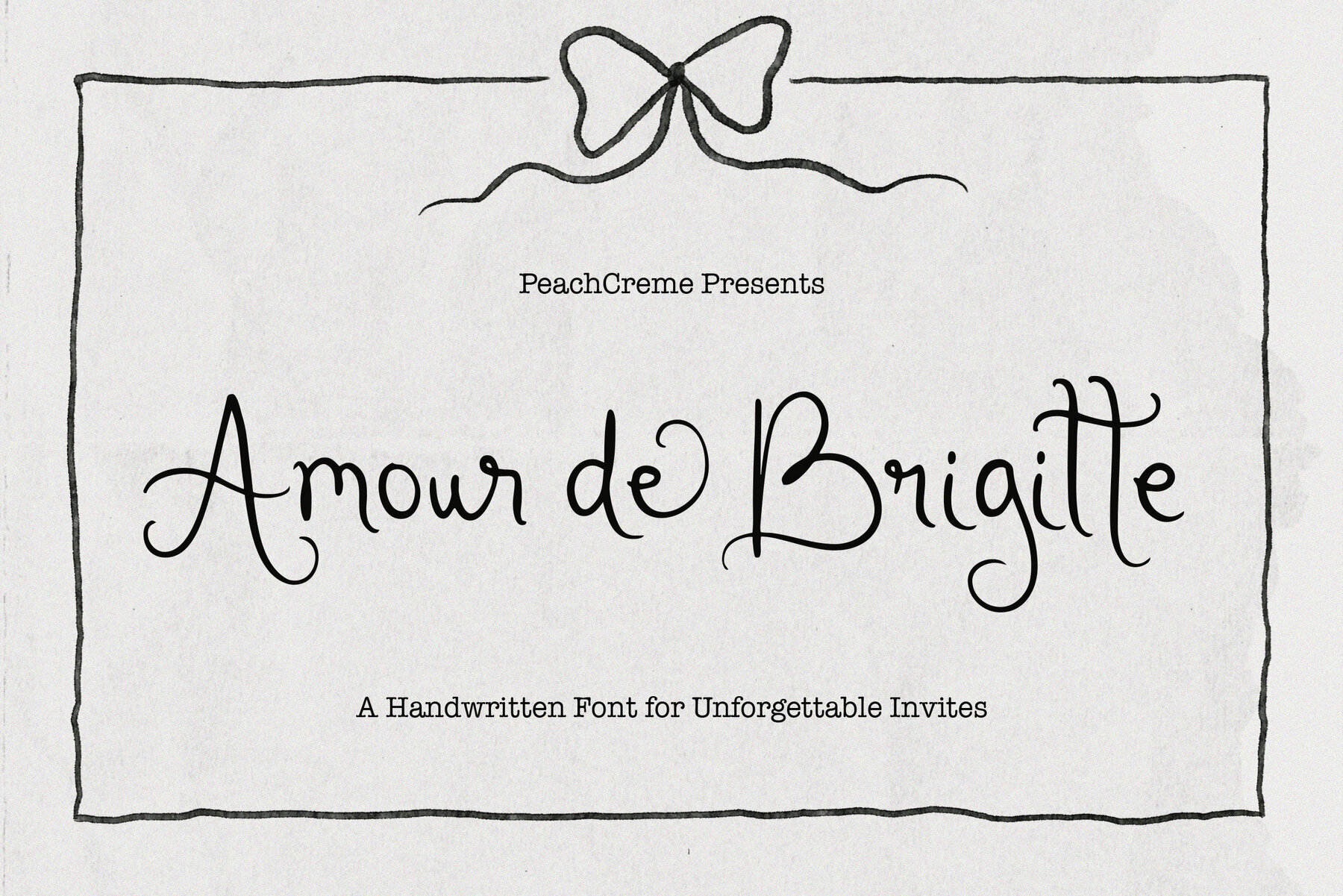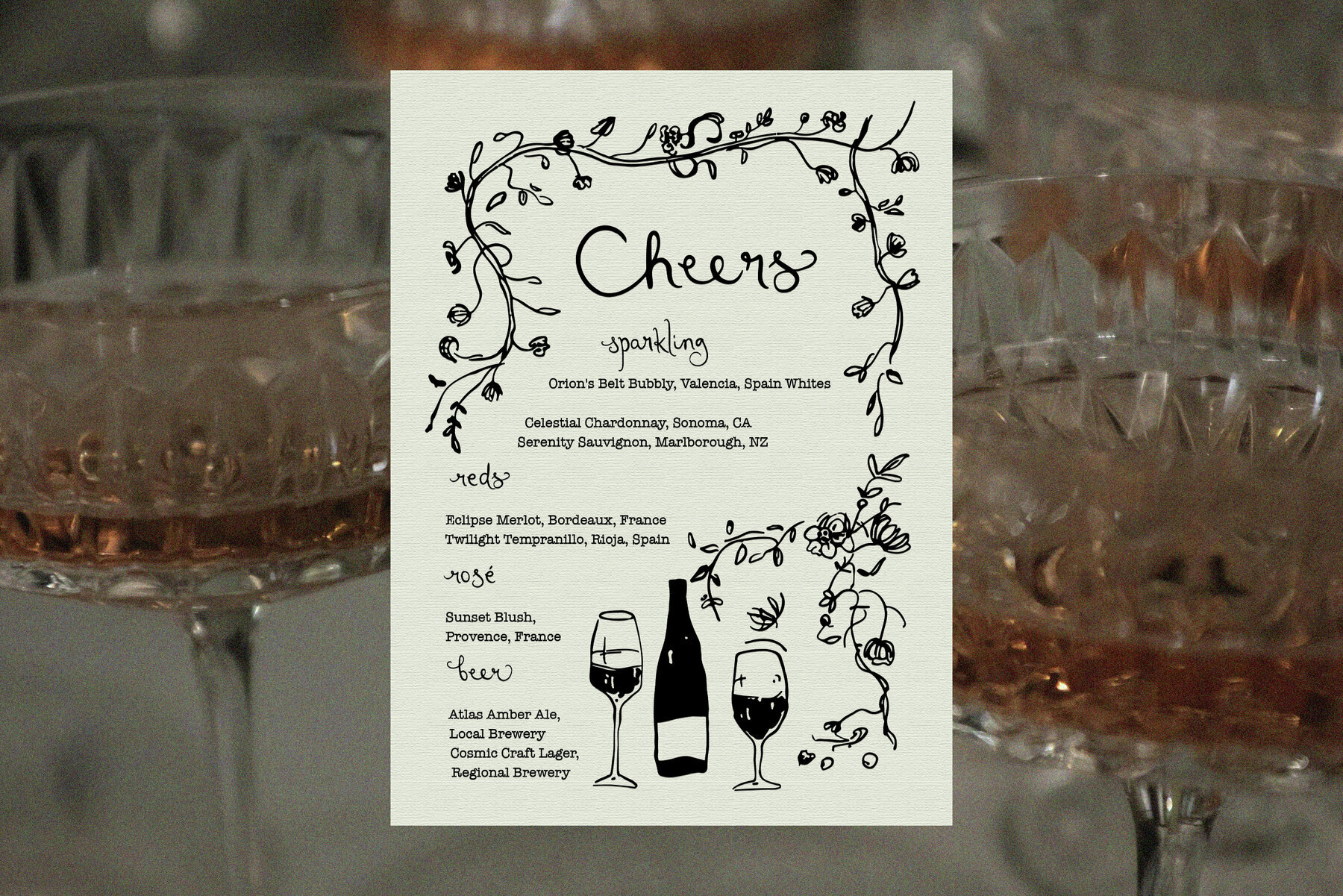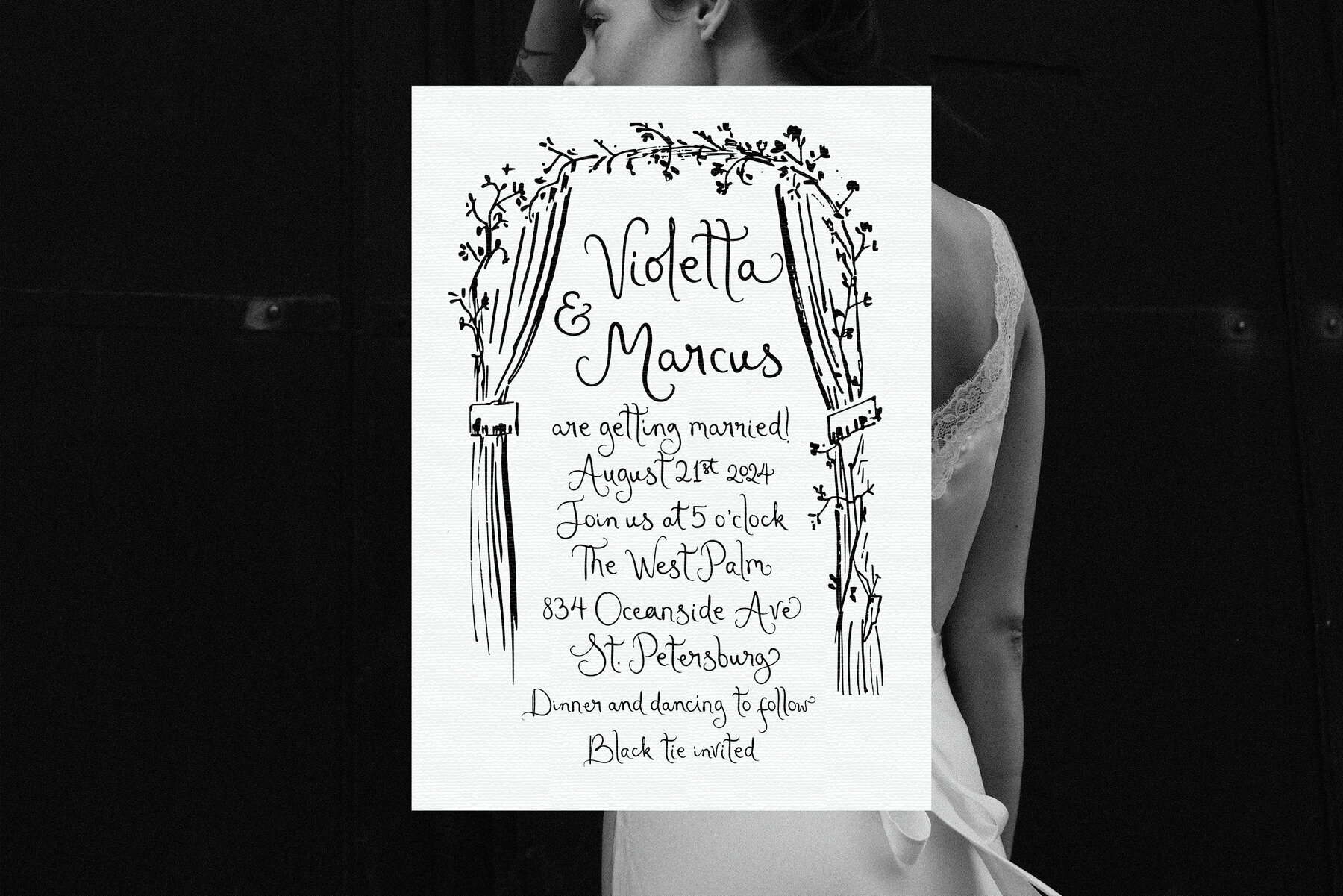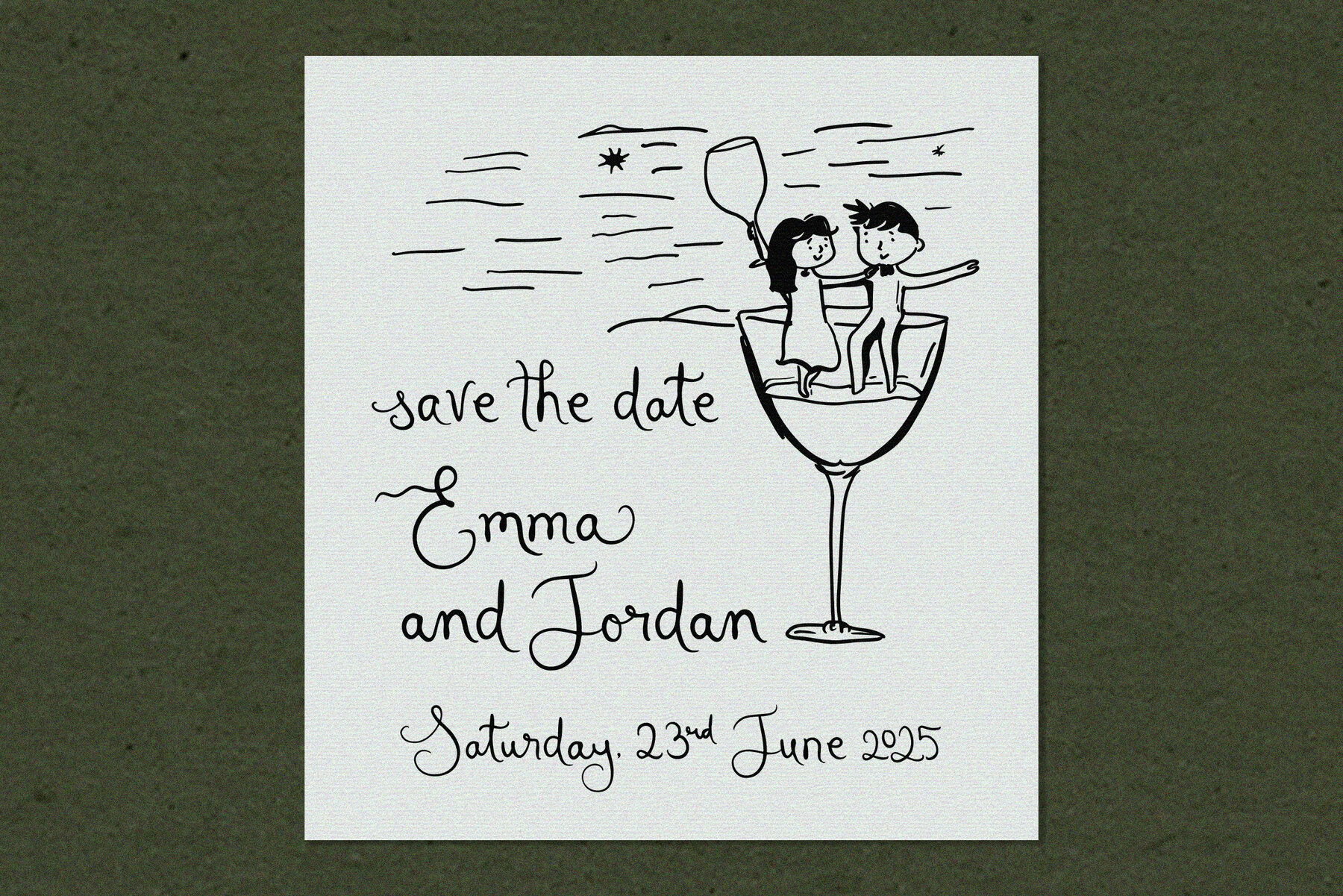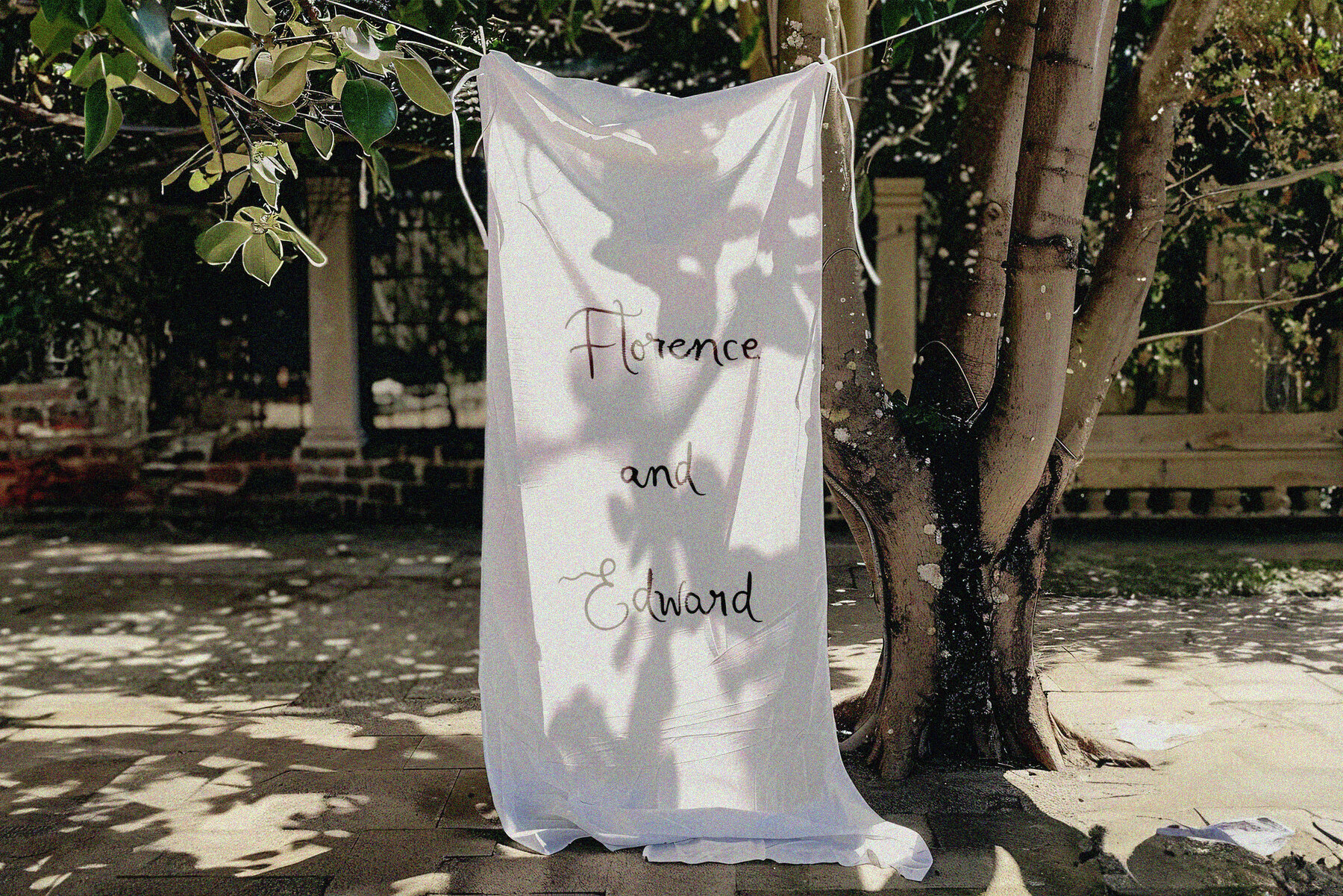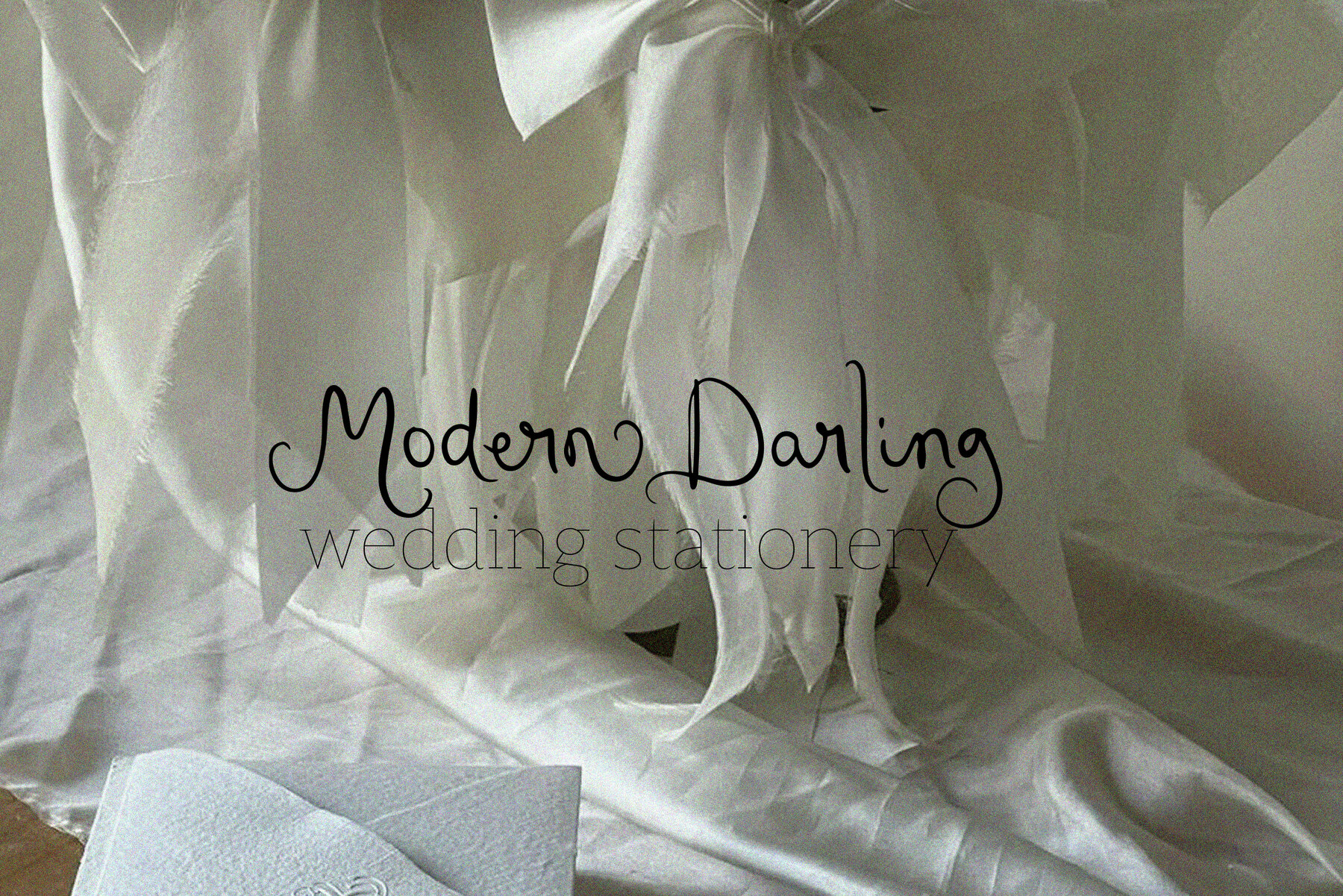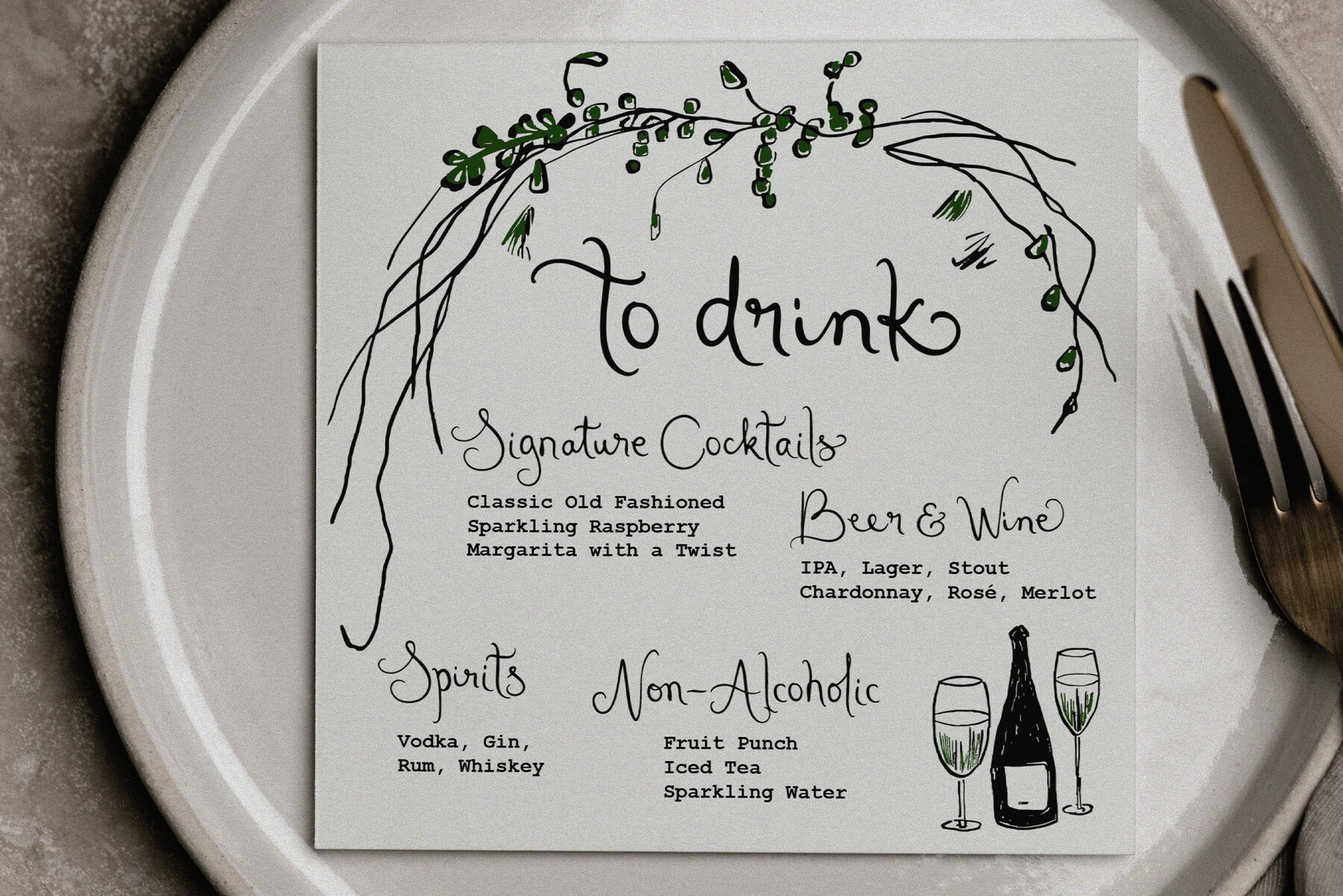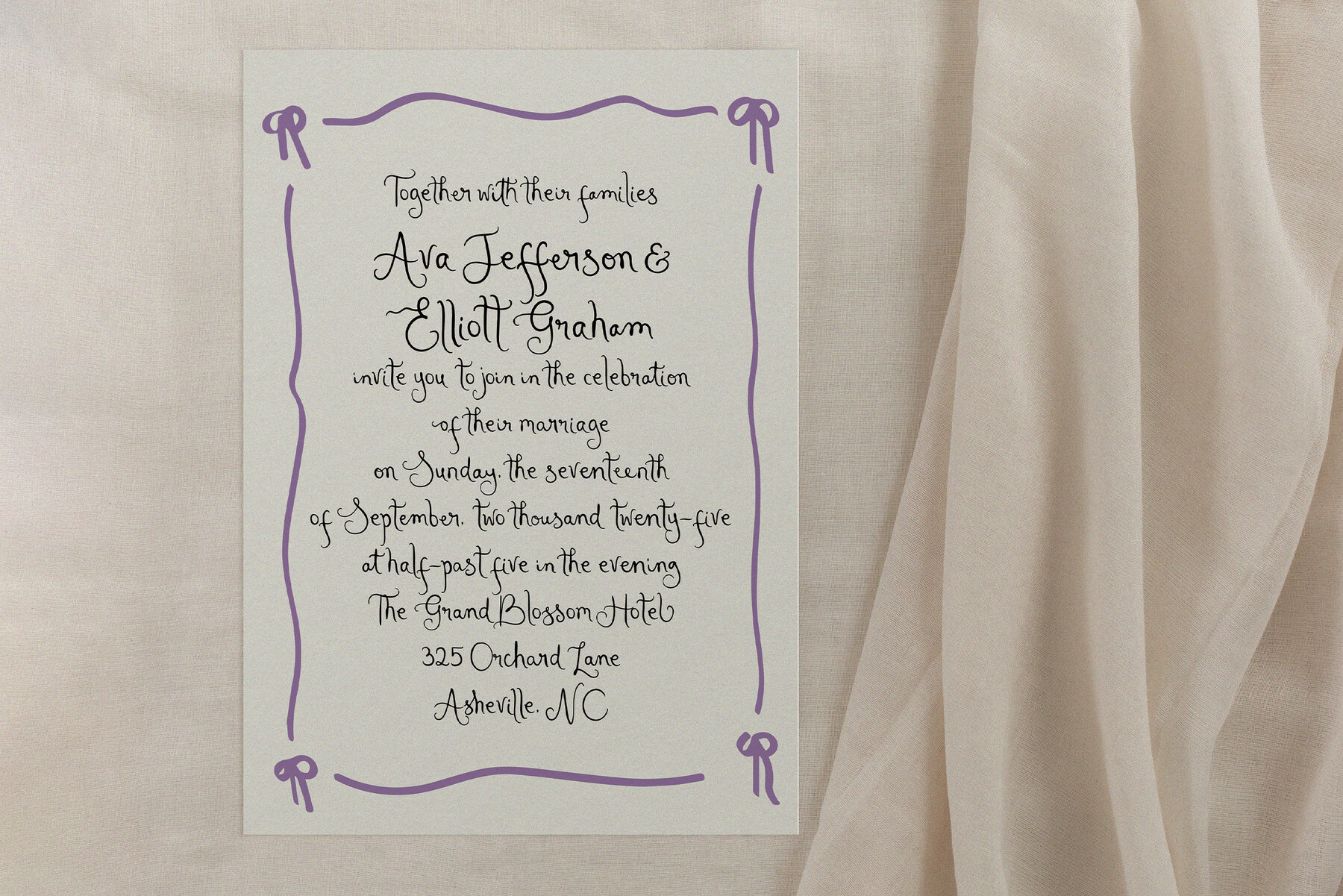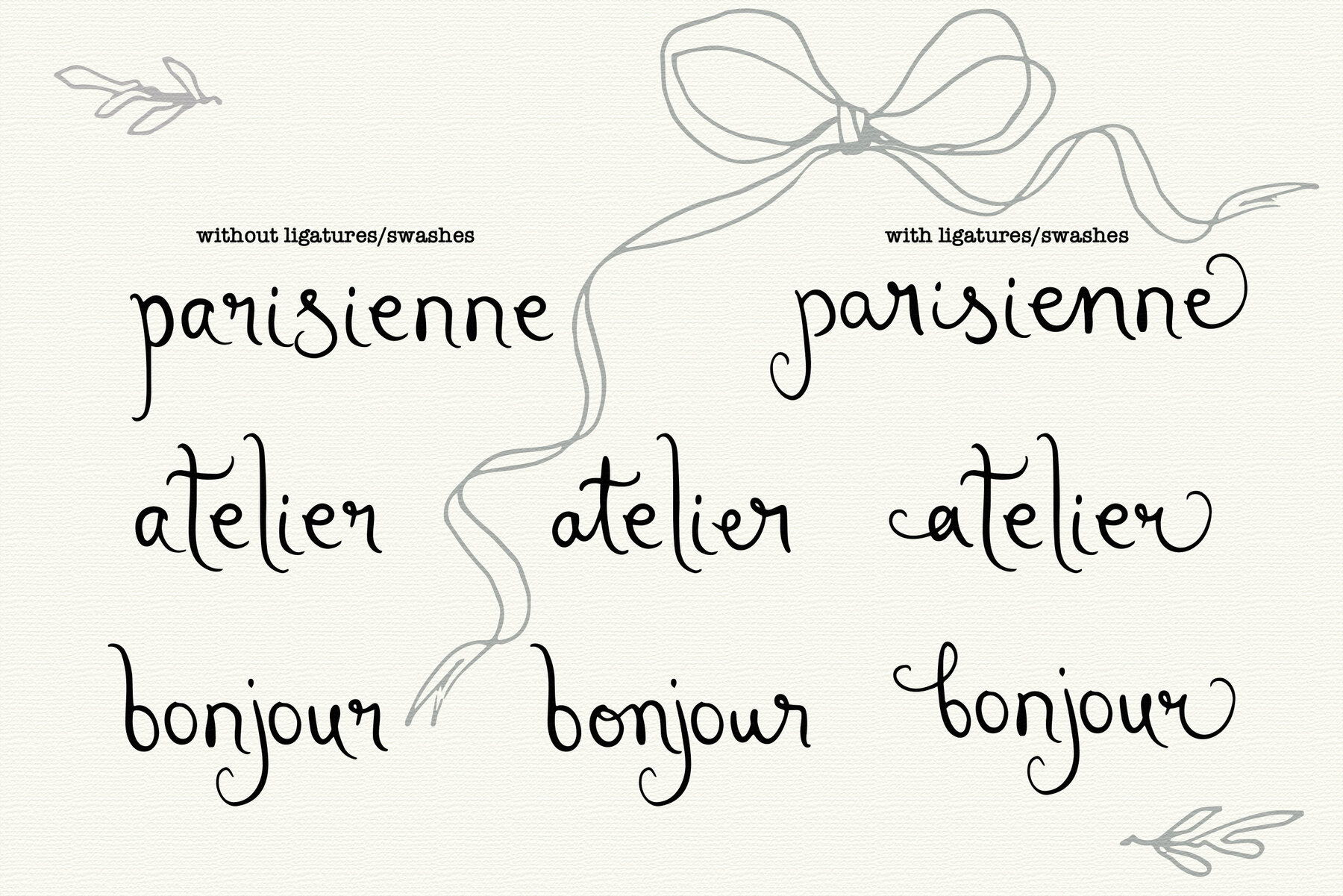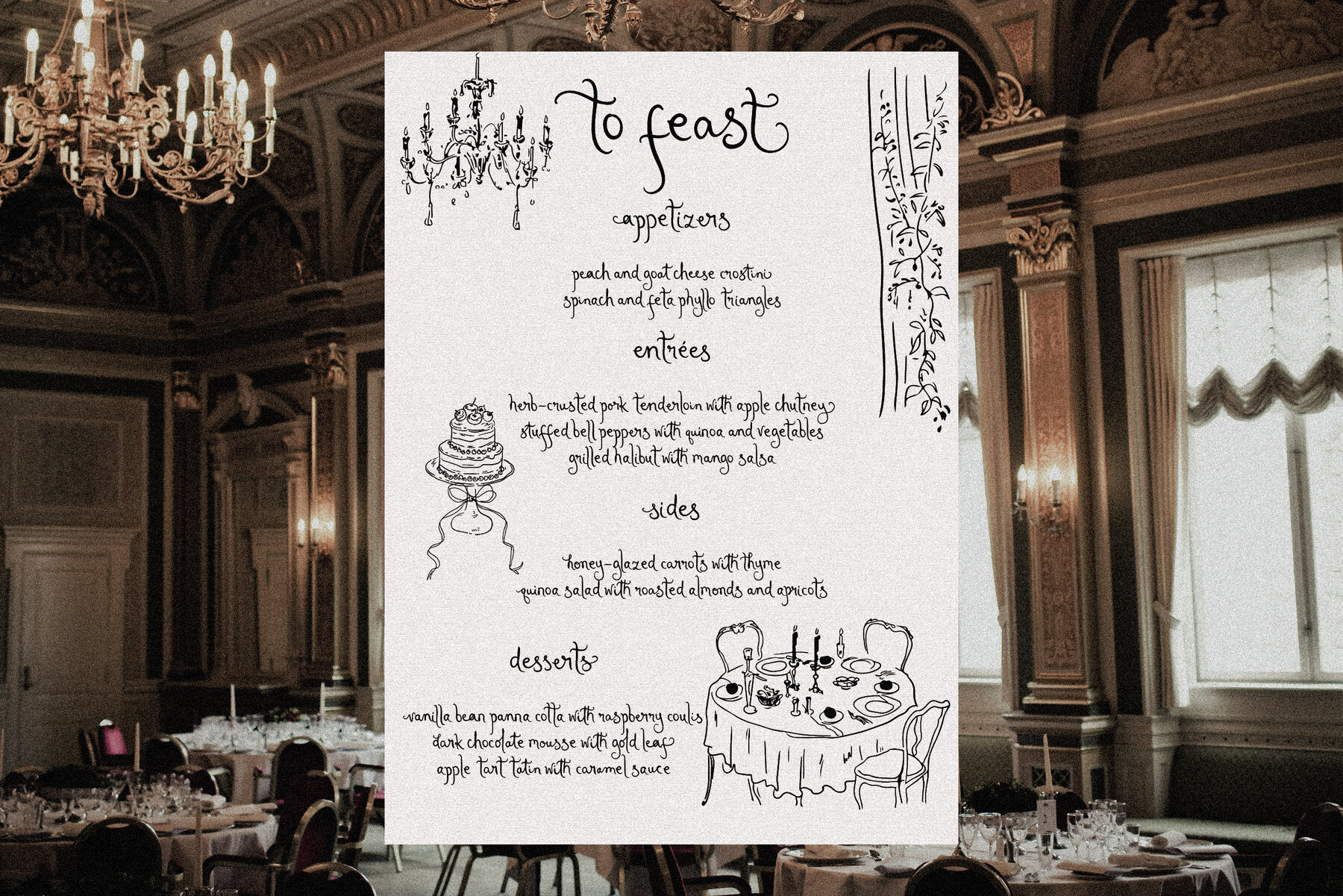
"Amour de Brigitte" is a contemporary font that blends playful and sophisticated elements, making it a perfect choice for modern wedding invitations and stationery for 2024-2025. Its unique character set includes alternative letters and swashes for the lowercase, allowing for customizable and distinctive designs that add a personalized touch to any project.